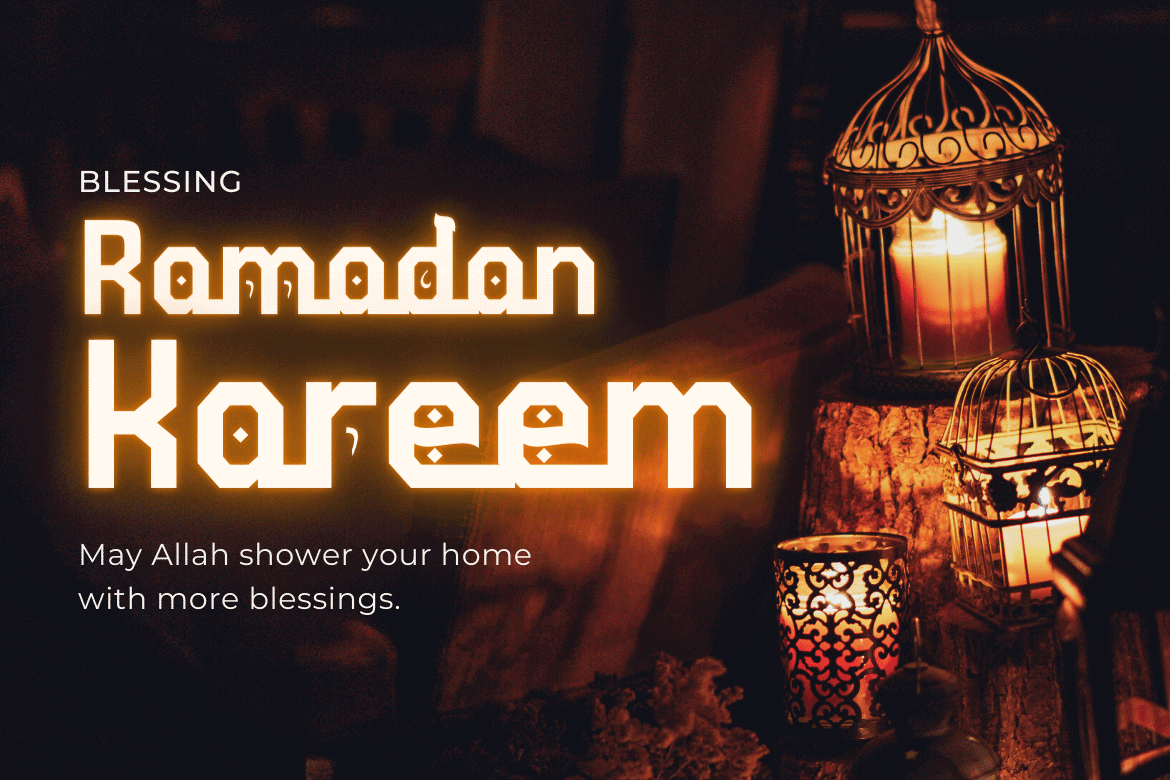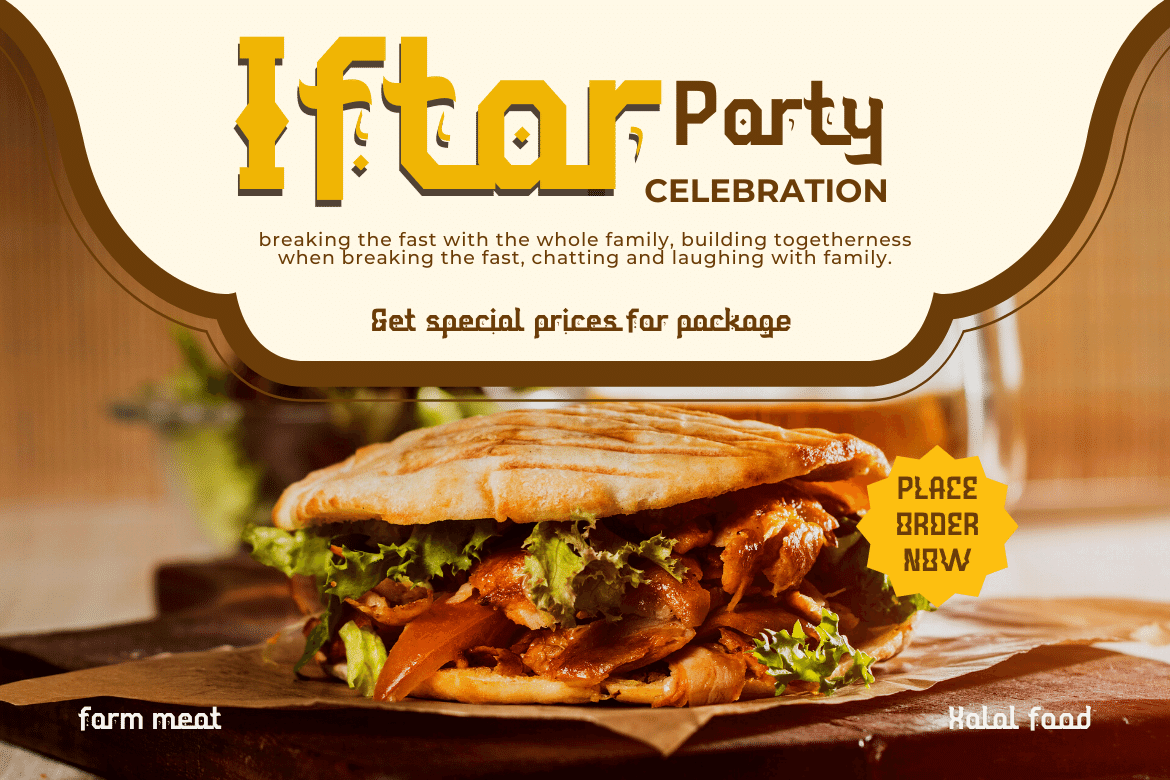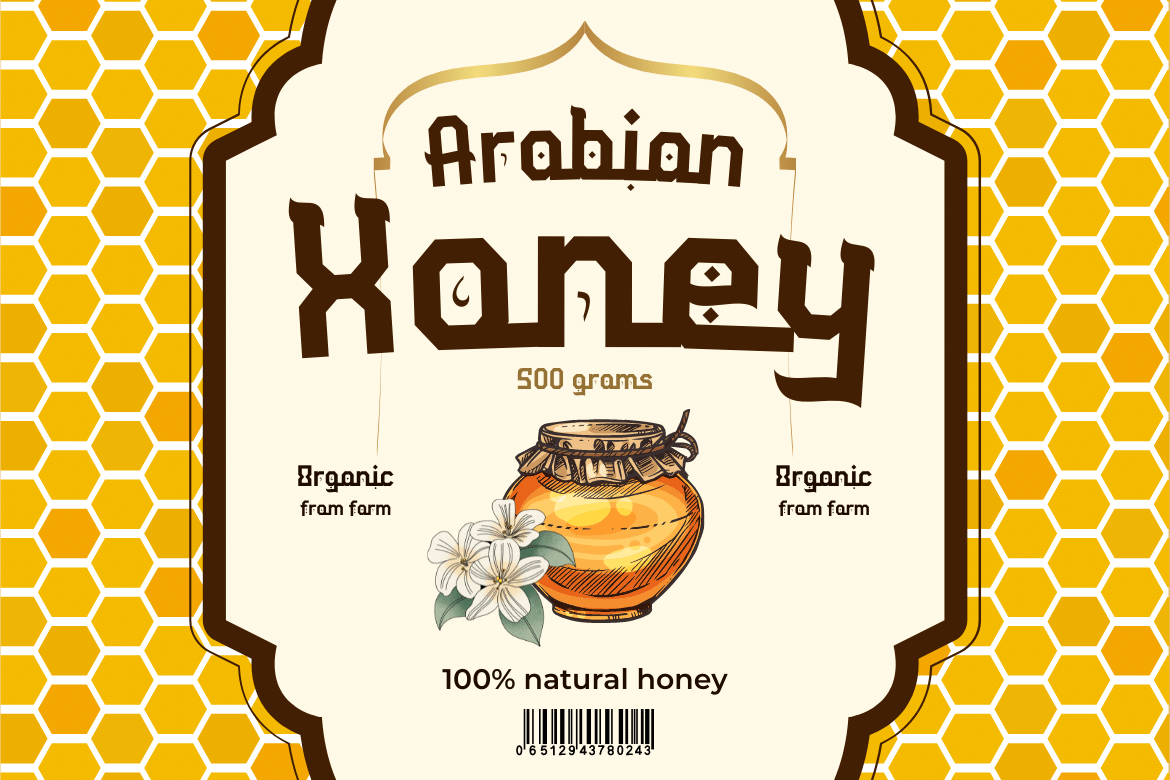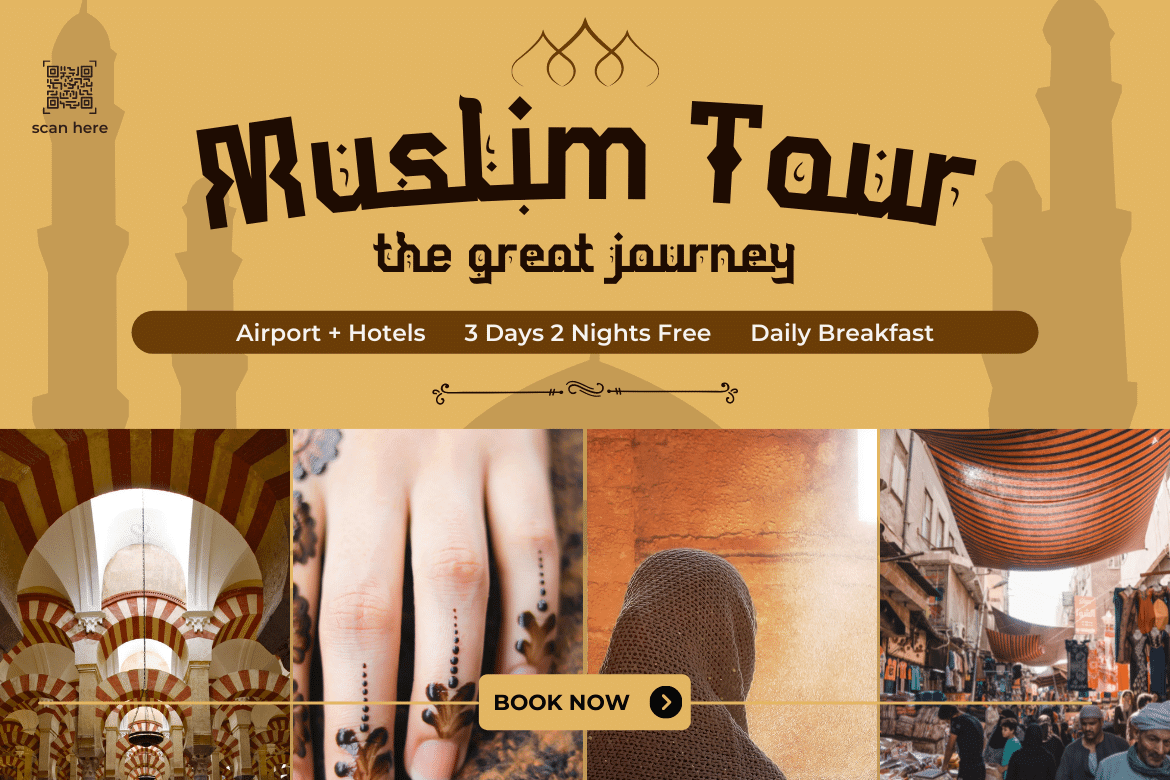
Ahuta Display Font
This particular font is designed to look like a true vintage Arabic font, but in a simple and elegant form, so you can use it in all your designs which will surely make your projects beautiful. This font has been created by our dedicated team to create the best quality typeface you will ever find.